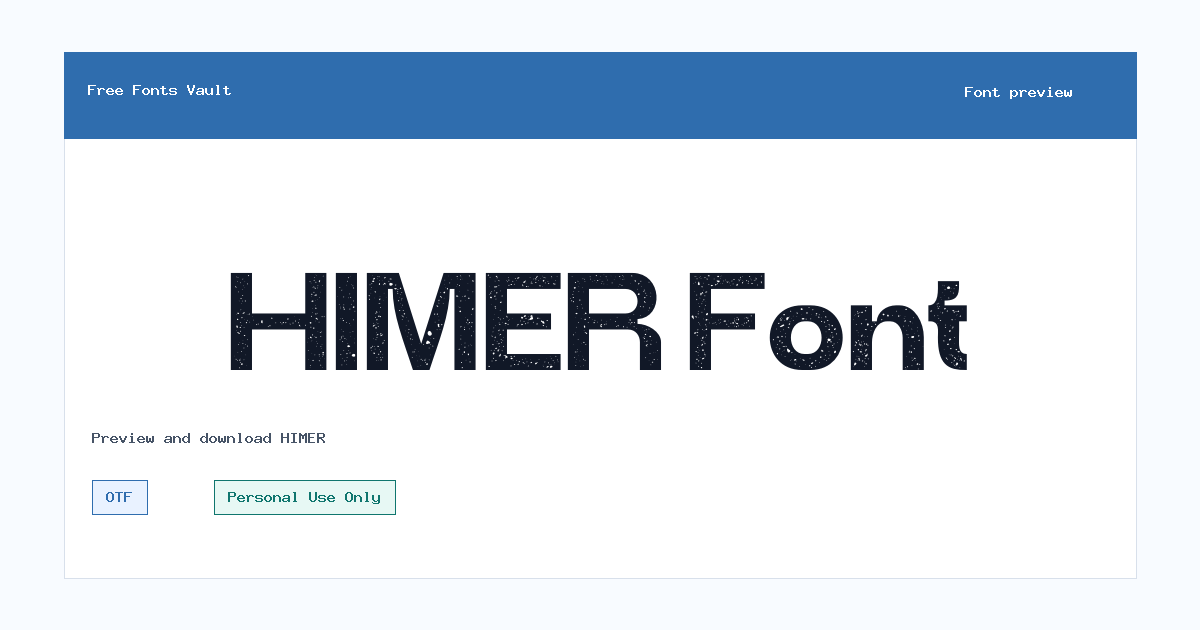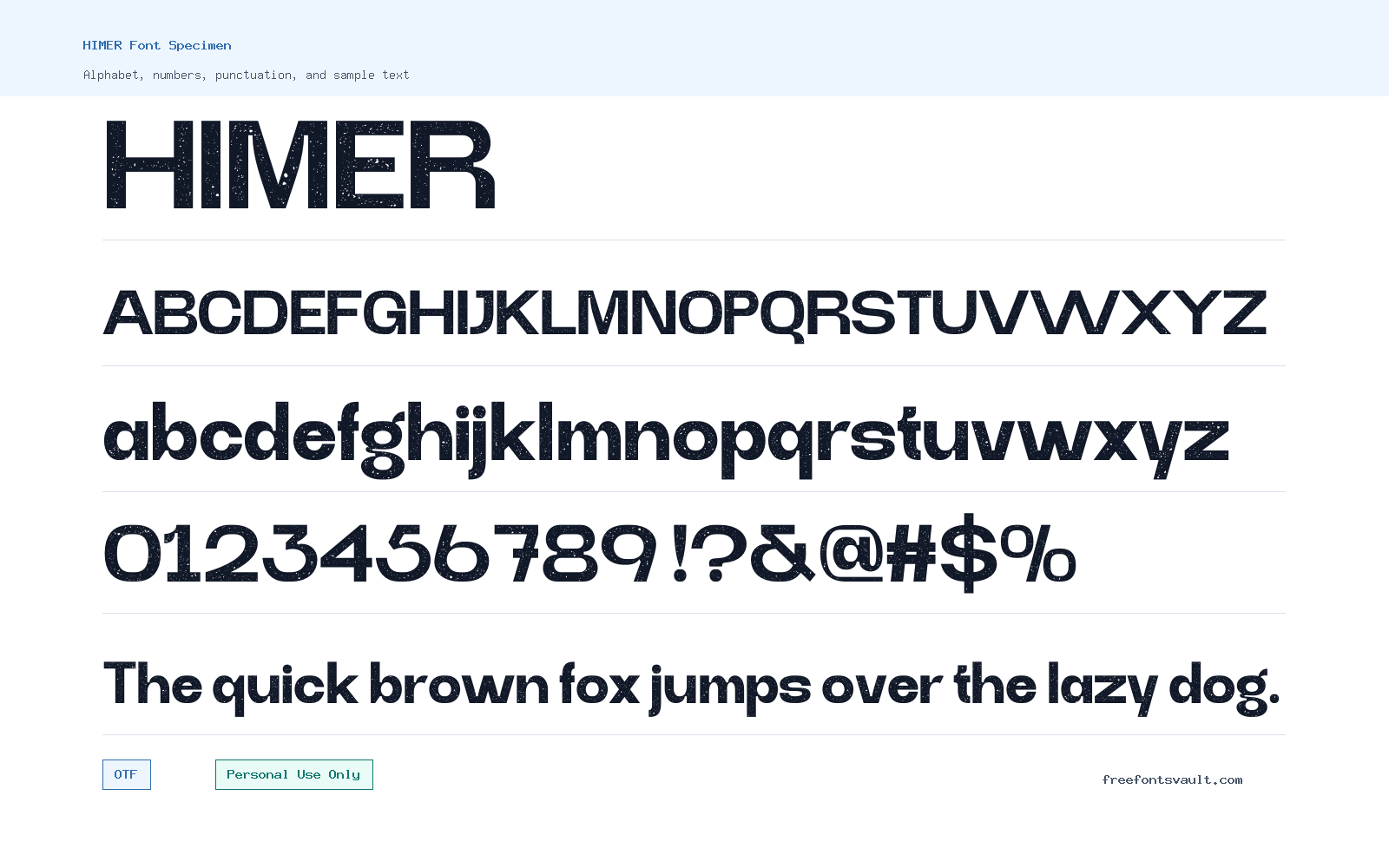
HIMER
- Designer Maikohatta
HIMER is a personal-use font family with two OTF styles: a clean version and a grunge version. It is a practical choice when you want bold display text with an option for a rougher, more distressed look.
HIMER works best as a display font rather than a long-reading text face. The family includes HIMER.otf and HIMER-Grunge.otf, giving you two related ways to set the same title or wordmark idea. The clean file is better for sharper layouts, while the grunge file can add a worn texture for posters, music graphics, social banners, apparel mockups, or edgy headline treatments. Because the available files are OTF, they are suited for common design apps that support OpenType fonts, including tools used for print layouts, branding drafts, and web mockups.
Use HIMER where the message is short and the font can stay large enough to show its shape clearly. It can work well for logo sketches, title cards, thumbnail text, event flyers, packaging concepts, and experimental typography, but it should be tested carefully before using it for menus, body copy, captions, or dense interface text. If you are designing a logo, try the clean style first for structure, then compare the grunge style only if the project needs a rougher personality. For better readability, pair HIMER with a quiet sans serif or simple serif for supporting text, and avoid pairing it with another highly decorative display font unless the layout is intentionally loud.
- Display-focused styling with both clean and distressed options
- Useful for short headlines, logo drafts, posters, mockups, and graphic titles
- Logo concepts and wordmark drafts
- Poster headlines and event graphics
- Music, streetwear, or grunge-inspired visual concepts
- Social media title graphics and thumbnails
- Web design mockups that need strong display typography
- Personal artwork, school projects, and non-commercial experiments
What is the difference between HIMER and HIMER Grunge?
HIMER.otf is the cleaner style, while HIMER-Grunge.otf is the distressed version. Try the clean style for sharper layouts and the grunge style when you want a rougher texture.
Can I use HIMER for a logo?
Is HIMER good for body text?
It is better suited to short display text. For paragraphs, captions, menus, or UI text, pair it with a simpler readable font.